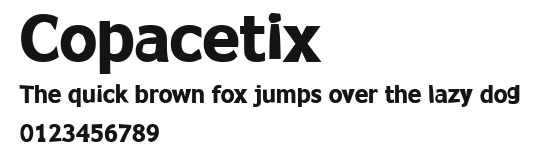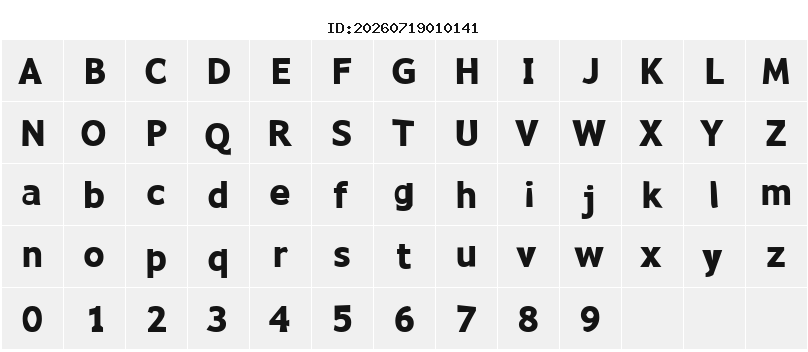
Copacetix.ttf is a modern, elegant sans-serif font designed for ultimate readability and visual harmony. Perfect for branding, headlines, web design, and print materials.